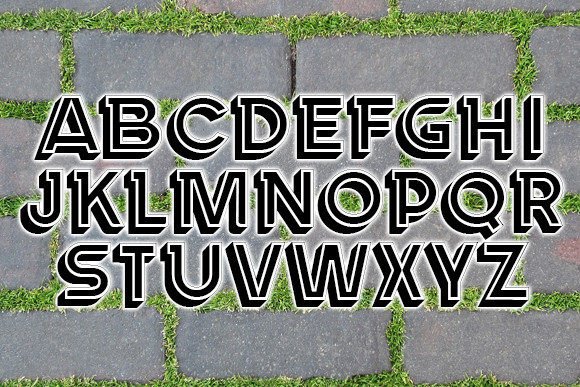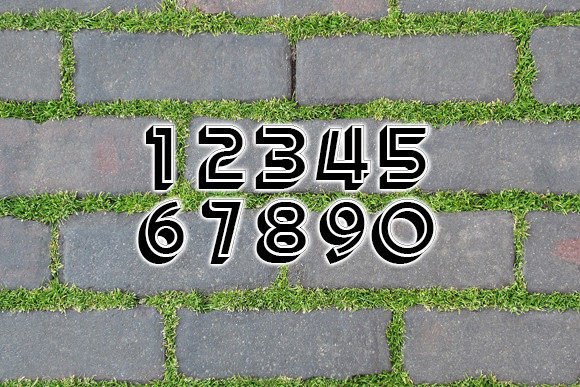
Introduction to Landman Font
Landman is stylish sans serif typeface that will make your designs look stunning and cool.
Use this font on posters, flyers and shirts .
Key Features of Landman Font
Why Choose Landman Font?